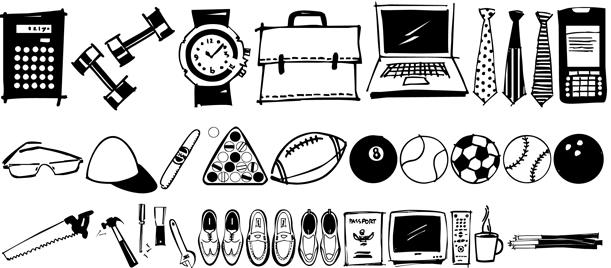
HomeFont BrosDingbatGuy Doodles Dingbat Guy Doodles FacebookXPinterestWhatsApp 1 of 1 About Guy Doodles Fun, illustrations of guy stuff. This font is designed to work well with the hand-lettering fonts offered by Outside the Line.  DOWNLOAD ON FONT BROSThis font is sold and delivered by Font Bros. Font Canyon may earn a commission if you buy through this link. People also explored Autumn Font Amandine Font Bright Shine Font Deboskale Script Font Black Gray Font Saffron Font Abedole Font Hello Sunday Font Best Letter Font 369 0 TagsGuy Doodles Font Previous articleDonkeymanNext articleTrick LEAVE A REPLY Cancel reply Comment: Please enter your comment! Name:* Please enter your name here Email:* You have entered an incorrect email address! Please enter your email address here Website: Save my name, email, and website in this browser for the next time I comment. Personal Use Free Bintang Noela Personal Use Free Read more about this font Clarisa Script Personal Use Free Read more about this font Messy Personal Use Free Read more about this font Rocketto Personal Use Free Read more about this font BLOG Using Fonts in Digital Marketing: Tips to Strengthen Your Brand Identity In the realm of digital marketing, every visual element plays a crucial role in shaping a brand's identity, and fonts are no exception. The... Top 10 Handwritten Fonts That Elevate Your Designs Top 7 Google Fonts Alternatives for Faster and Privacy-Friendly Web Design (2025) Elegant Wedding Invitation Fonts – Handwritten & Script Fonts